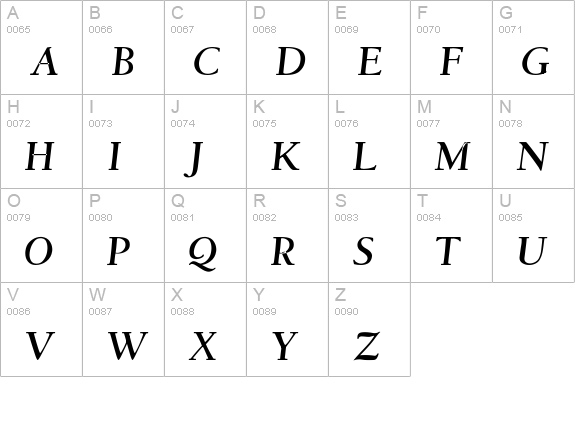
RSJacksonville Font Details
Introducing RSJacksonville, a modern and versatile font that effortlessly combines sleek elegance with a touch of playfulness. This font exudes sophistication and charm, making it perfect for a wide range of design projects, from branding to packaging to social media graphics. RSJacksonville is a free font that is sure to elevate any design with its clean lines and stylish aesthetic. Whether you're looking to create a professional logo or a captivating poster, this font has you covered. Its versatility allows it to be used in both digital and print designs, making it a must-have in any designer's toolkit. You can easily download RSJacksonville for free at FontsMarket.com, where you can access a wide selection of high-quality fonts for all your design needs. Don't miss out on the opportunity to add this stunning font to your collection and take your designs to the next level.